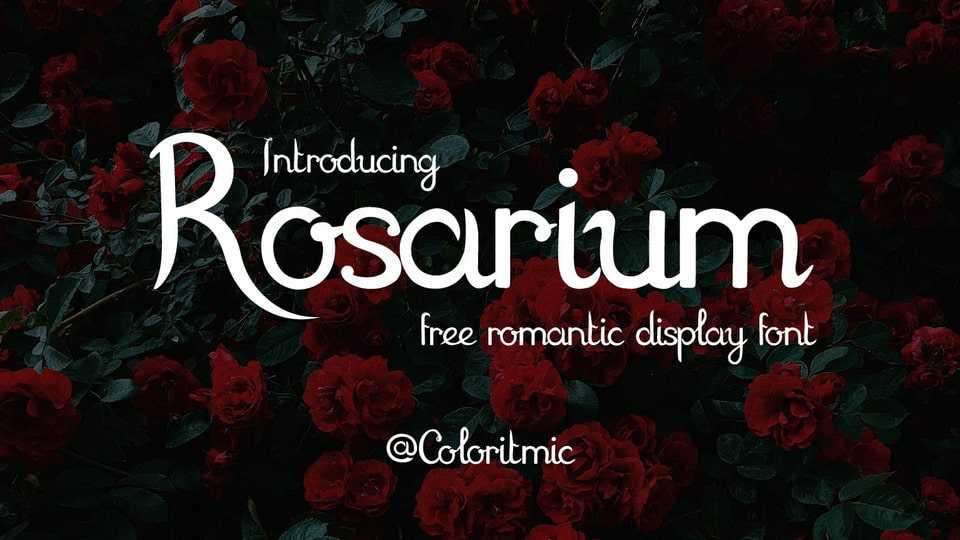
Download Rosarium font, a romantic display typeface inspired by floral patterns. Rosarium font beautifully captures the essence of romance, making it an ideal choice for designs that require a touch of heartfelt elegance.